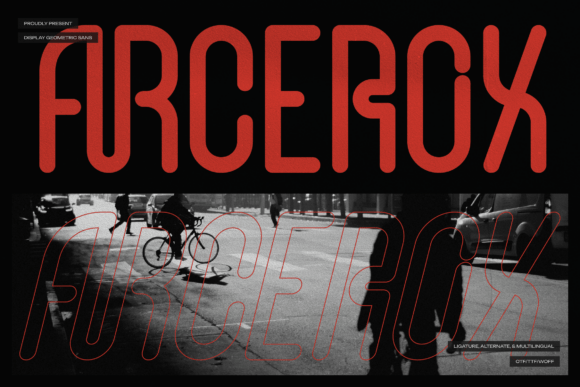
The Perfect Font for a Bold Creative Statement
Have you ever found yourself stuck on a design project, struggling to find the right font to convey your message and capture the attention of your audience? We’ve all been there. The right font can make all the difference, elevating your design from mere decoration to a powerful statement of style and intent.
Enter the Arcerox Font, a bold and futuristic geometric sans font that’s designed to do just that. With its tall, rounded forms and sleek ligatures, Arcerox Font is the perfect choice for headlines, branding, posters, or editorial layouts where you need to make a lasting impression.
What sets Arcerox Font apart is its versatility and adaptability, making it a valuable tool for designers looking to create something truly unique and eye-catching. With stylistic alternates and multilingual support, the possibilities are endless, and the Arcerox Font is sure to become a go-to choice for any design project that demands a bold and modern edge.
- Font Family: Arcerox is a sans-serif font family with 6 styles, including regular, italic, bold, bold italic, condensed, and condensed italic.
- Character Set: Supports a wide range of languages, including Latin, Cyrillic, Greek, and many non-Latin scripts, making it a versatile choice for global applications.
- Unique Characteristics: Arcerox features a clean and modern design, with a distinctive x-height and subtle rounded edges, giving it a friendly and approachable feel.
Arcerox Font Review
As a designer, I’m always on the lookout for unique and captivating fonts to elevate my projects. The Arcerox Font is a bold and modern sans-serif typeface that caught my attention. Here’s my honest review.
- Unique geometric structure: The Arcerox Font’s design is a perfect blend of modern and futuristic elements, making it perfect for sci-fi or tech-related projects.
- Legibility: Despite its geometric structure, the font is surprisingly easy to read, even at smaller font sizes.
- Neutral color palette: The font’s neutral color palette makes it easy to pair with any color scheme or design style.
- Limited language support: The Arcerox Font is not as extensive in terms of language support, which may limit its use for multilingual projects.
- Not ideal for body text: While the font is great for headlines or titles, it may not be the best choice for body text due to its geometric structure.
The Arcerox Font is a great addition to any designer’s toolbox, particularly for projects that require a bold and modern touch. While it has its limitations, its unique structure and legibility make it a great choice for headlines and titles. With a bit of creativity and experimentation, I’m confident that the Arcerox Font can elevate any design project.
To get the most out of Arcerox, use it for headings and titles to create a strong visual hierarchy. Combine it with bold colors and geometric shapes to create a modern and dynamic design. Common use cases include:
- Branding and identity design
- Digital product design
Alternatives to Arcerox Font for Designers
Inter Font is a highly versatile sans-serif font designed for digital use. It’s ideal for use in digital products, such as websites, apps, and software. Inter Font is designed to be highly legible and scalable, making it perfect for body text and headlines.
Compared to Arcerox Font, Inter Font has a more modern and sleek design. While Arcerox Font has a more classic feel, Inter Font is designed to be more contemporary and adaptable to various digital platforms.
Q: Does the Arcerox Font support Unicode characters?
Yes, the Arcerox Font includes a comprehensive Unicode character set, ensuring you can access a wide range of languages and characters. The font supports Unicode 14.0 and is compatible with languages such as English, Spanish, French, German, and many more.